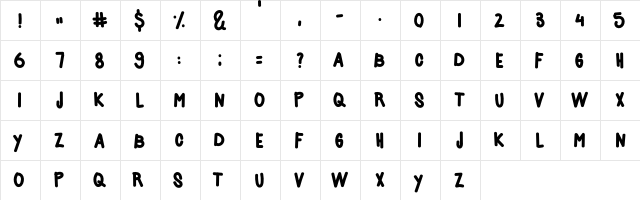
Acids Regular
Design Context for Acids Typeface
Acids is a composed and adaptable typeface that performs quietly and consistently across a wide range of design contexts.